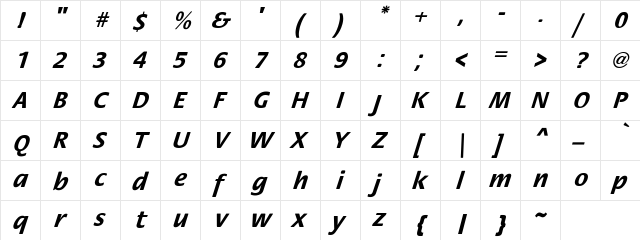
Rosamunde Oblique Bold Regular
Design Context for Rosamunde Oblique Bold Typeface
Rosamunde Oblique Bold takes a measured approach to typography — its balanced proportions and neutral character make it a reliable workhorse for both digital and print work. The slanted form adds forward momentum and visual energy. Its bold stroke weight gives it real presence on the page.
Pro Tip: Use Rosamunde Oblique Bold for emphasis, pull quotes, and subheadings where its slanted energy can add rhythm to the layout.